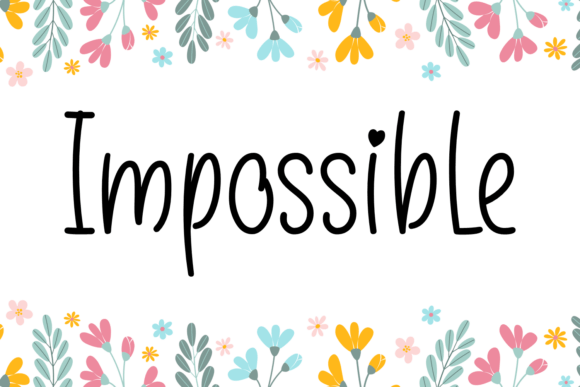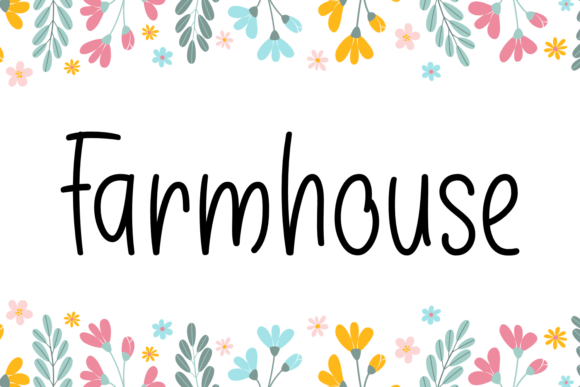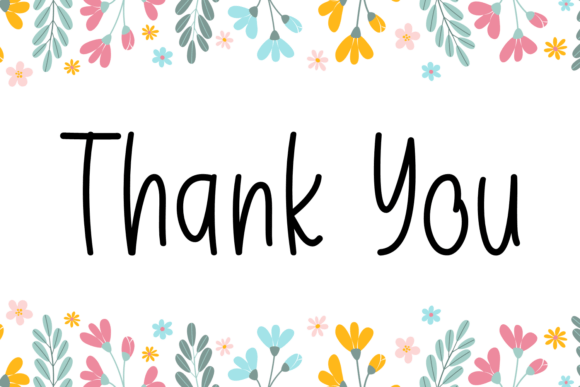
Introduction to Sensational Handwritten Font
Sensational Handwritten is a charming and whimsical font with a casual, friendly feel.
Featuring adorable heart details and smooth, rounded strokes, this font is perfect for greeting cards, kids’ projects, branding, social media, and DIY crafts Its playful and cheerful vibe adds warmth and personality to any design.
Key Features of Sensational Handwritten Font